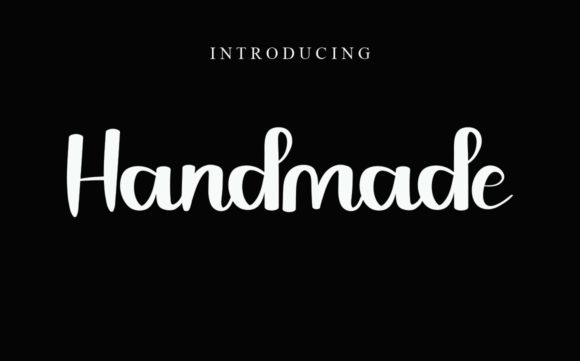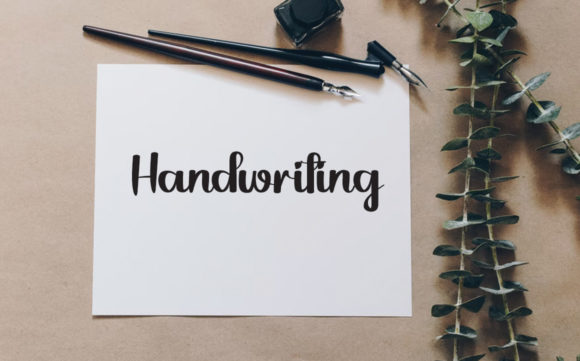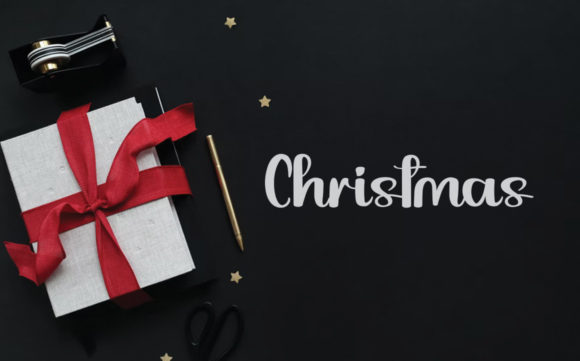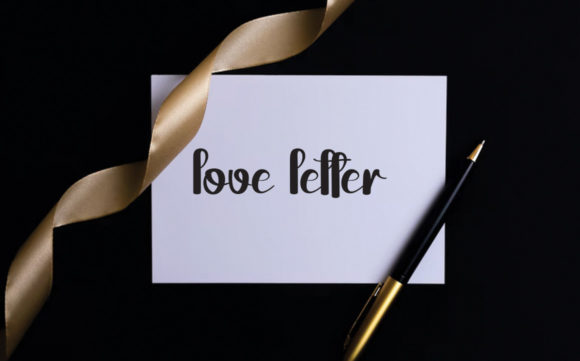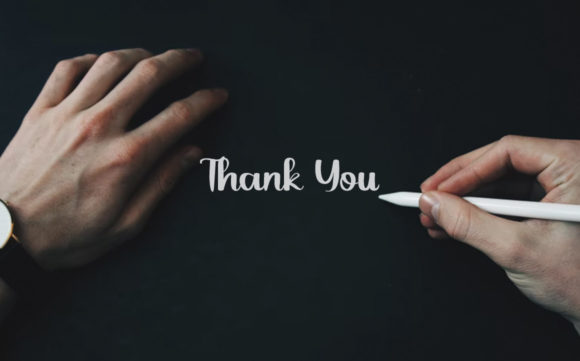
Handmade is a chic and trendy handwritten font. Whether you’re using it for crafts, digital design, presentations, or making greeting cards, this font has the potential to become your favorite go-to font, no matter the occasion!